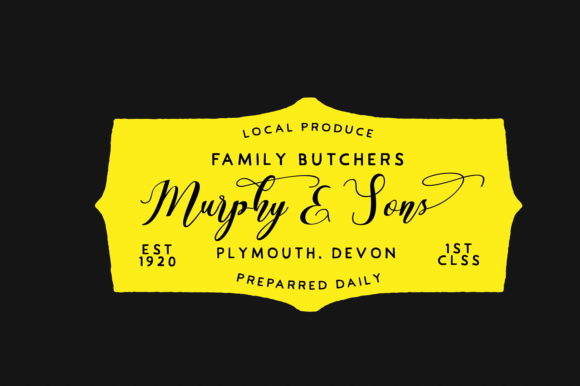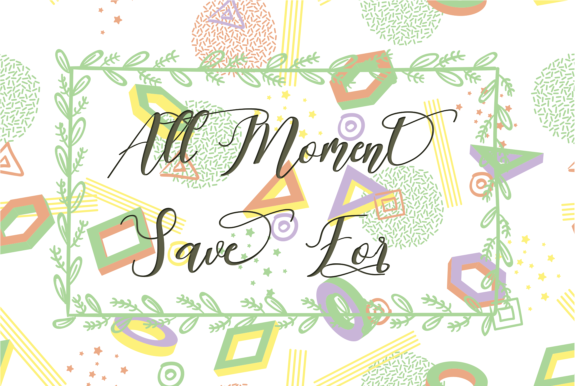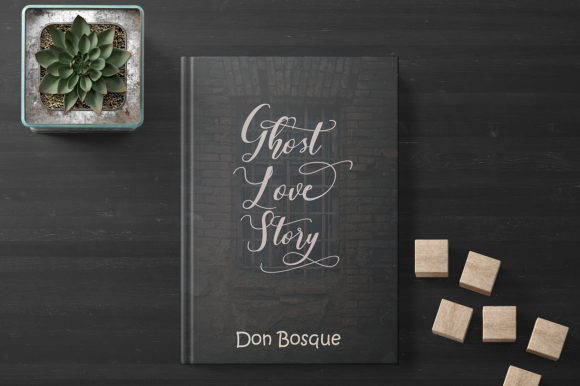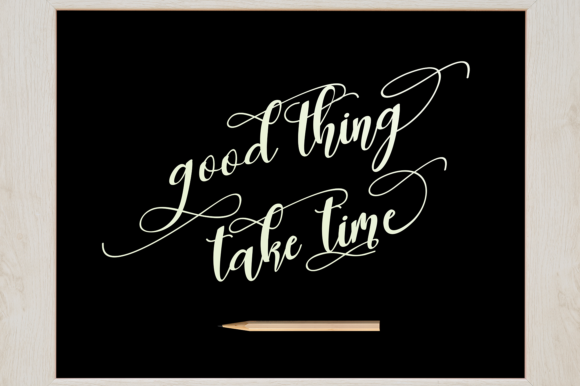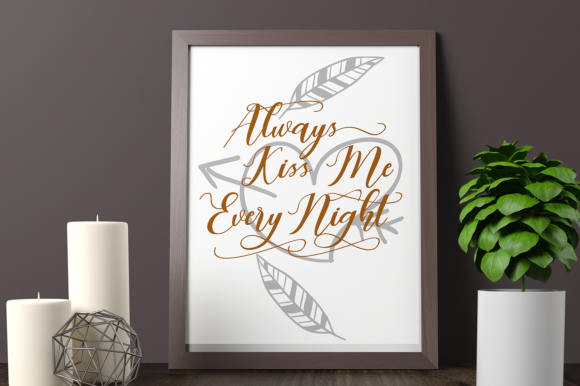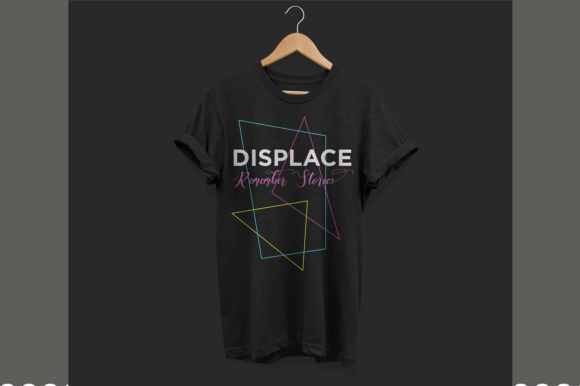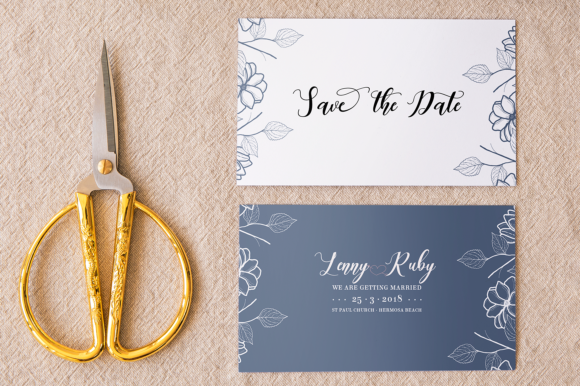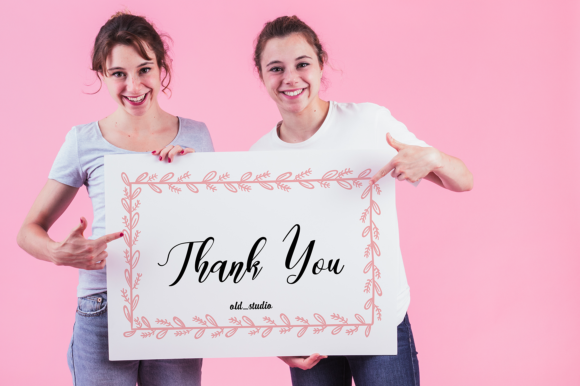
Latte Coffee Font
About Latte Coffee Font
The Latte Coffee is a modern calligraphy font. It has a trendy, natural style which is perfect for wedding invitations, birthdays, logos, headlines, and much more!